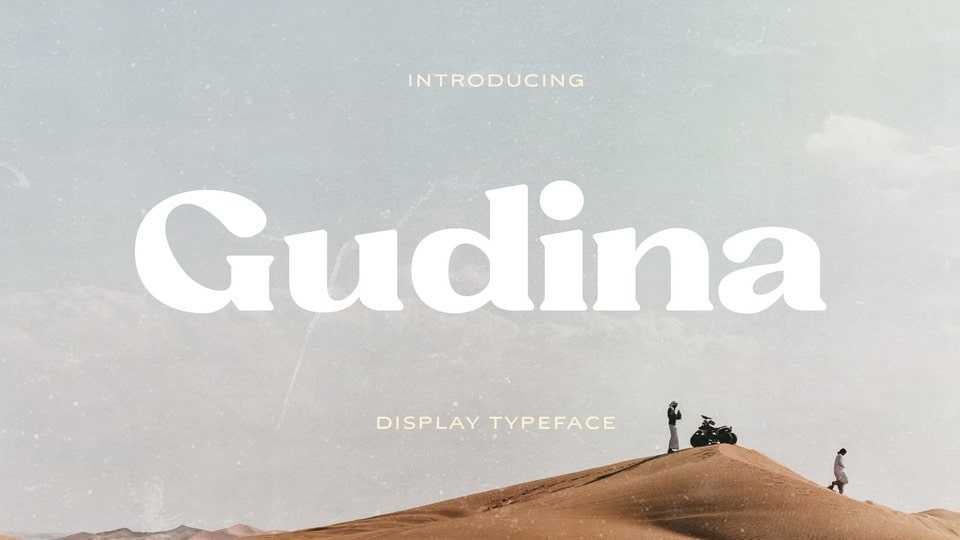
Download Gudina font, a unique serif typeface in varying sizes and layouts will lend an instant sophisticated flair to any project, whether it be branding, advertising, logo design, packaging, or headline text.
Designer: Yukita Creative